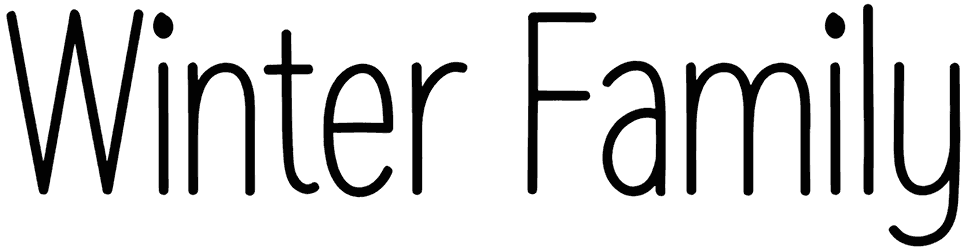
Winter Family Font
We believe that beauty comes with simplicity, and on this occasion, a marvelous sans-serif font mostly known as the Winter Family really deserves to be one of your main options in the realm of designing eye-catching book covers, gift cards, billboards, movie posters, or stickers.